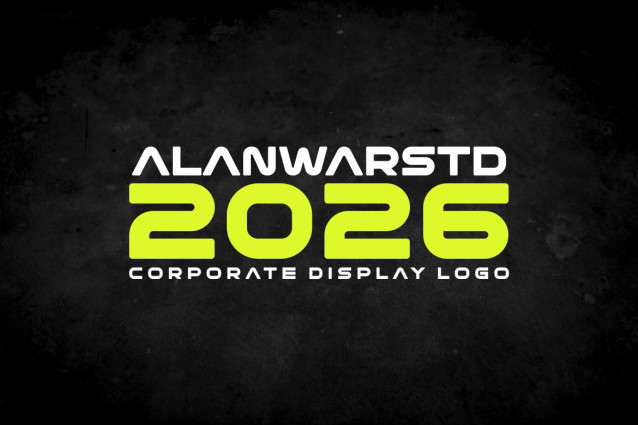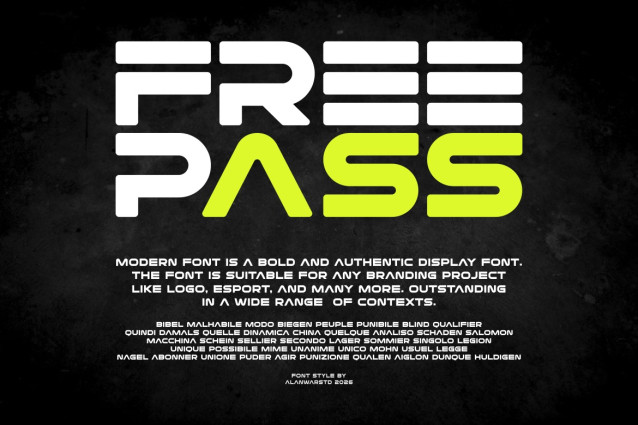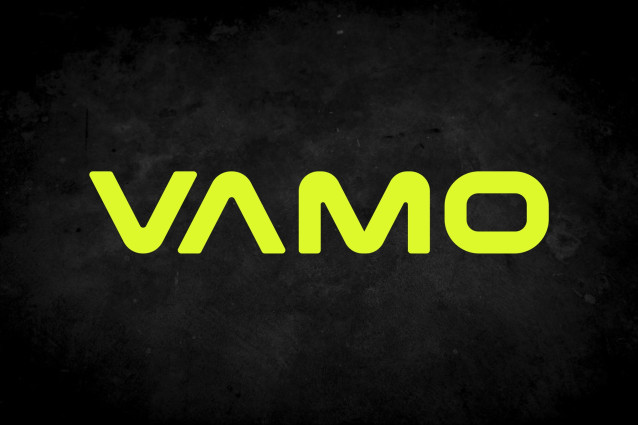
Vamo Font
Vamo Font – Corporate Display Logo is a bold and authentic display font. The font is suitable for all branding projects such as logos, esports, etc. It looks exceptional in a wide range of contexts.